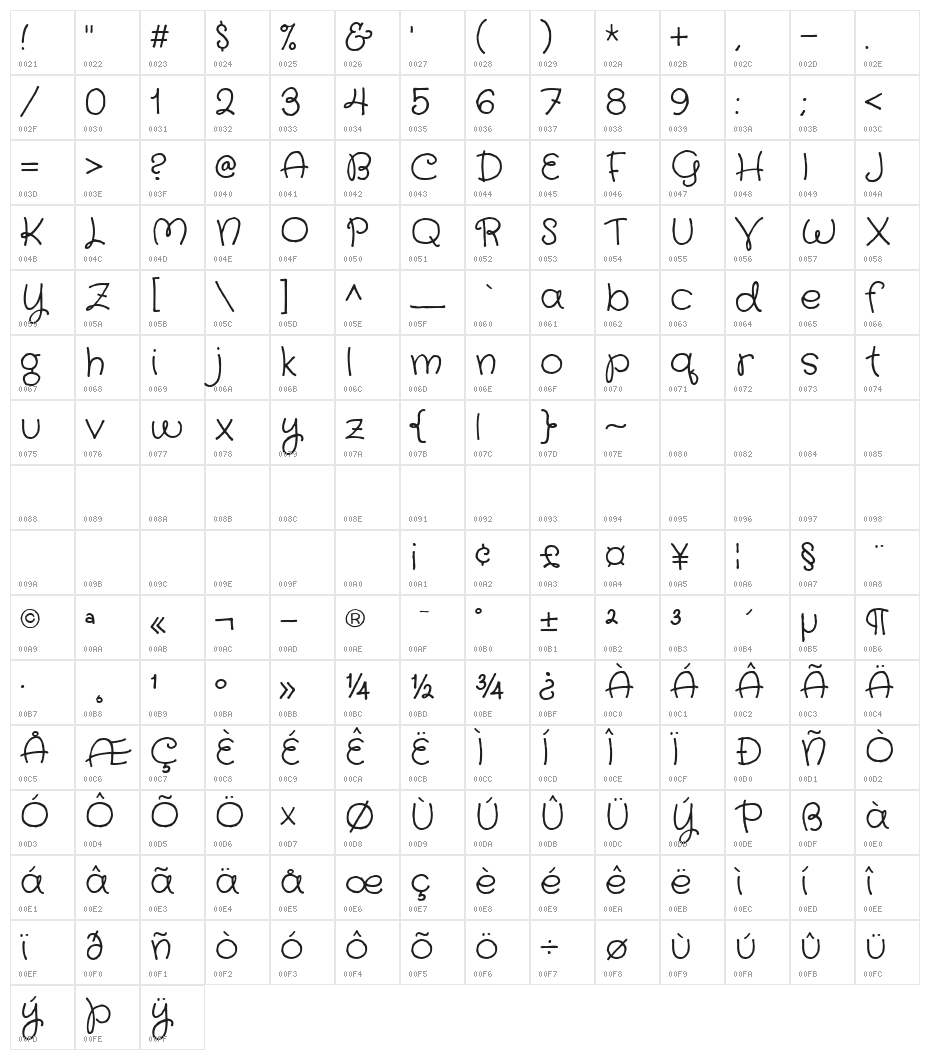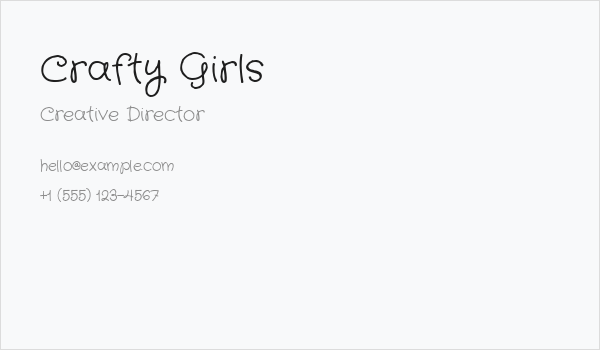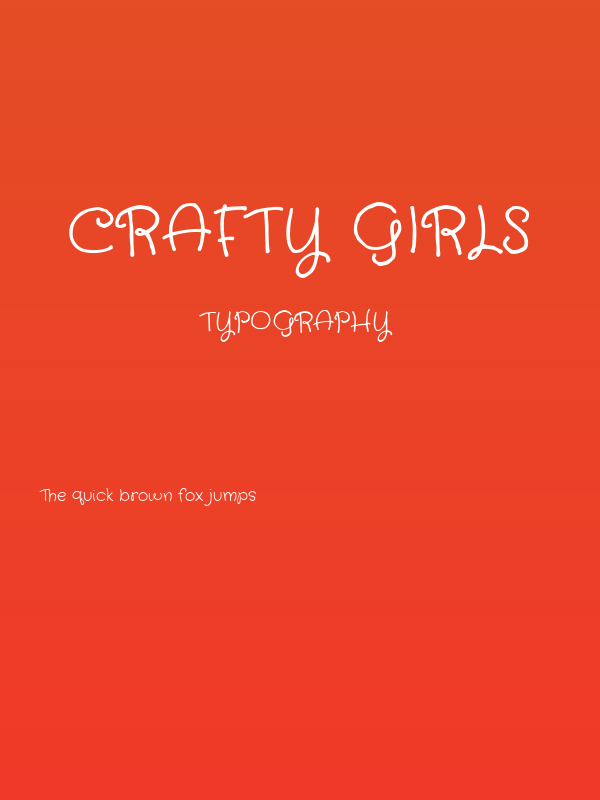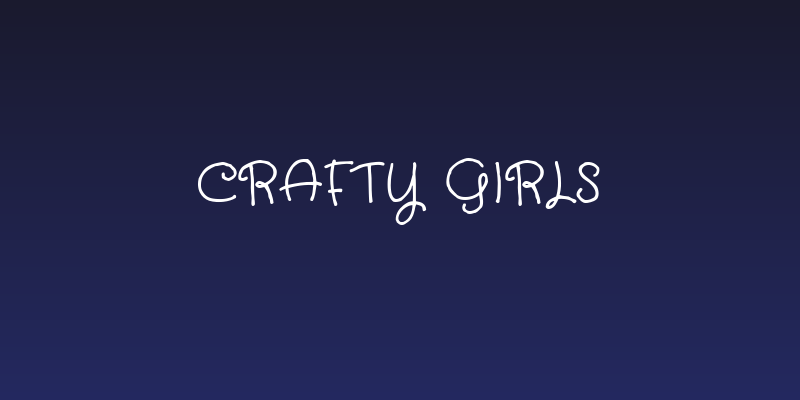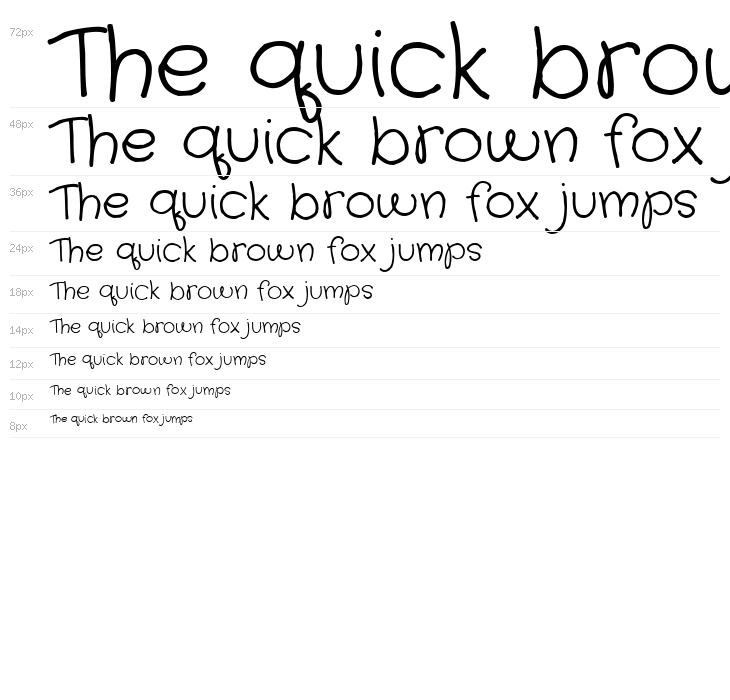
Crafty Girls Font
| Gesamtstil | Whimsical |
| Anwendungsfall | Logos, Invitations, Greeting Cards |
| Vorgeschlagene Projekte | Ideal for greeting cards, children's books, playful branding, and DIY crafts. |